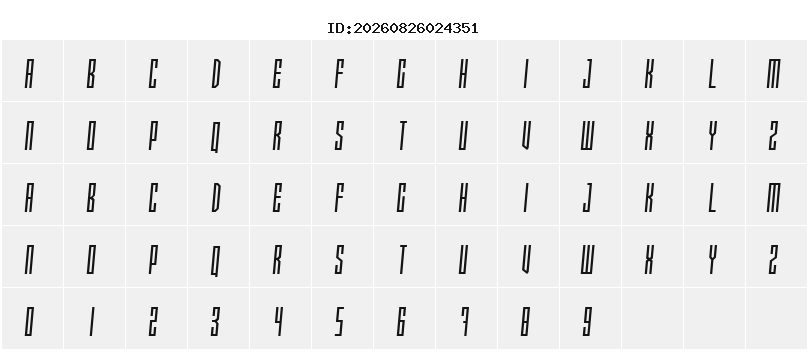
• Font Name: Xray Ted skew
About Xray Ted skew.ttf
Xray Ted skew.ttf is a modern, elegant sans-serif font designed for ultimate readability and visual harmony. Perfect for branding, headlines, web design, and print materials.